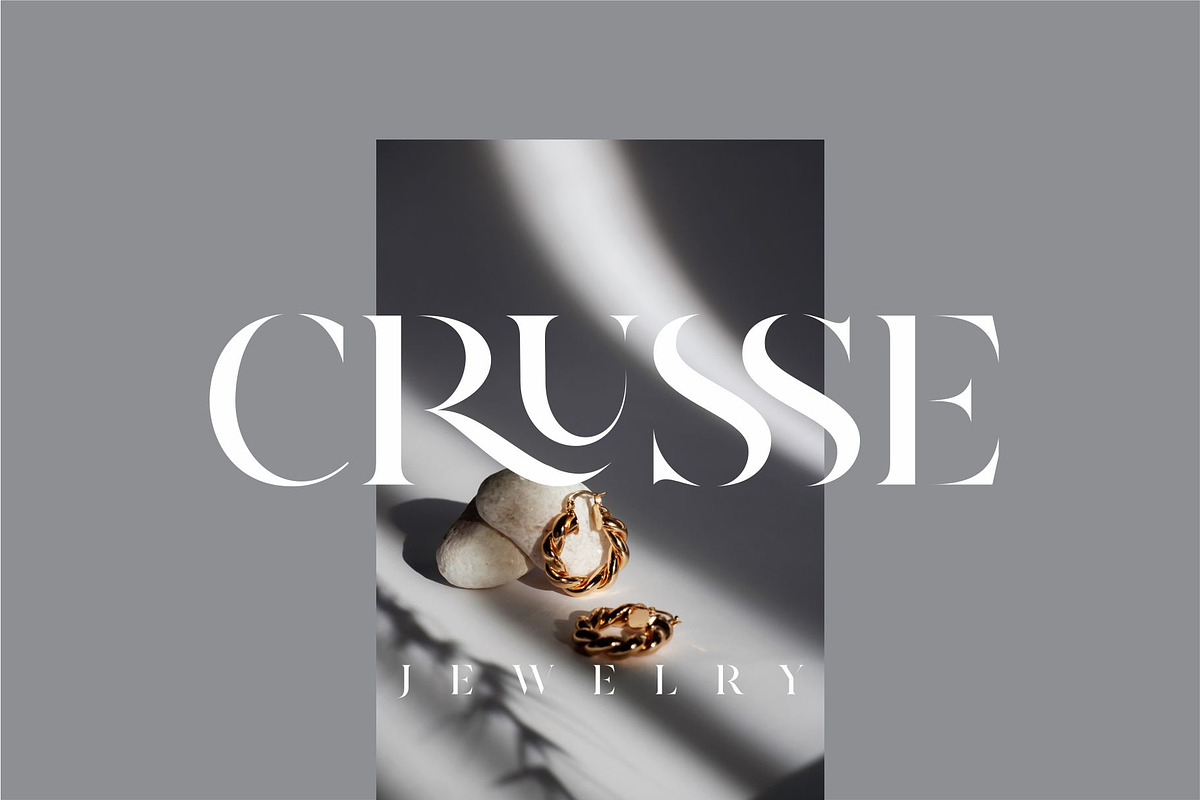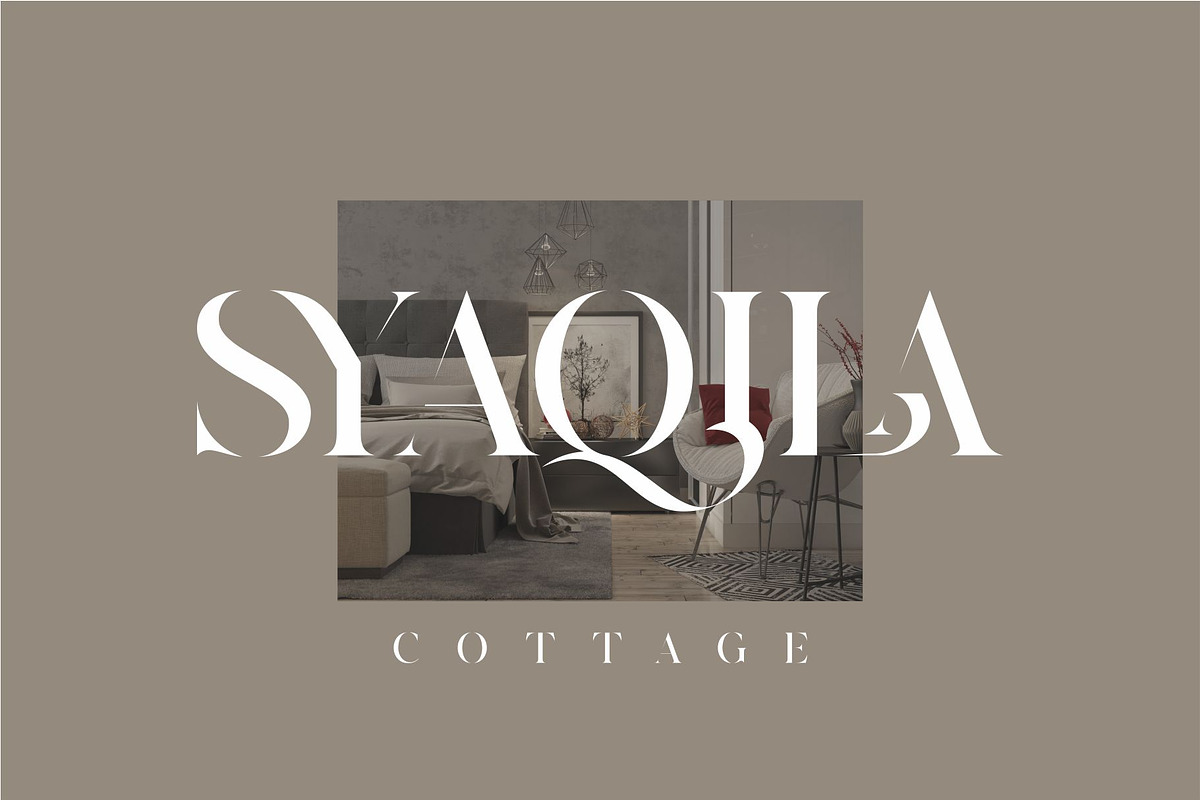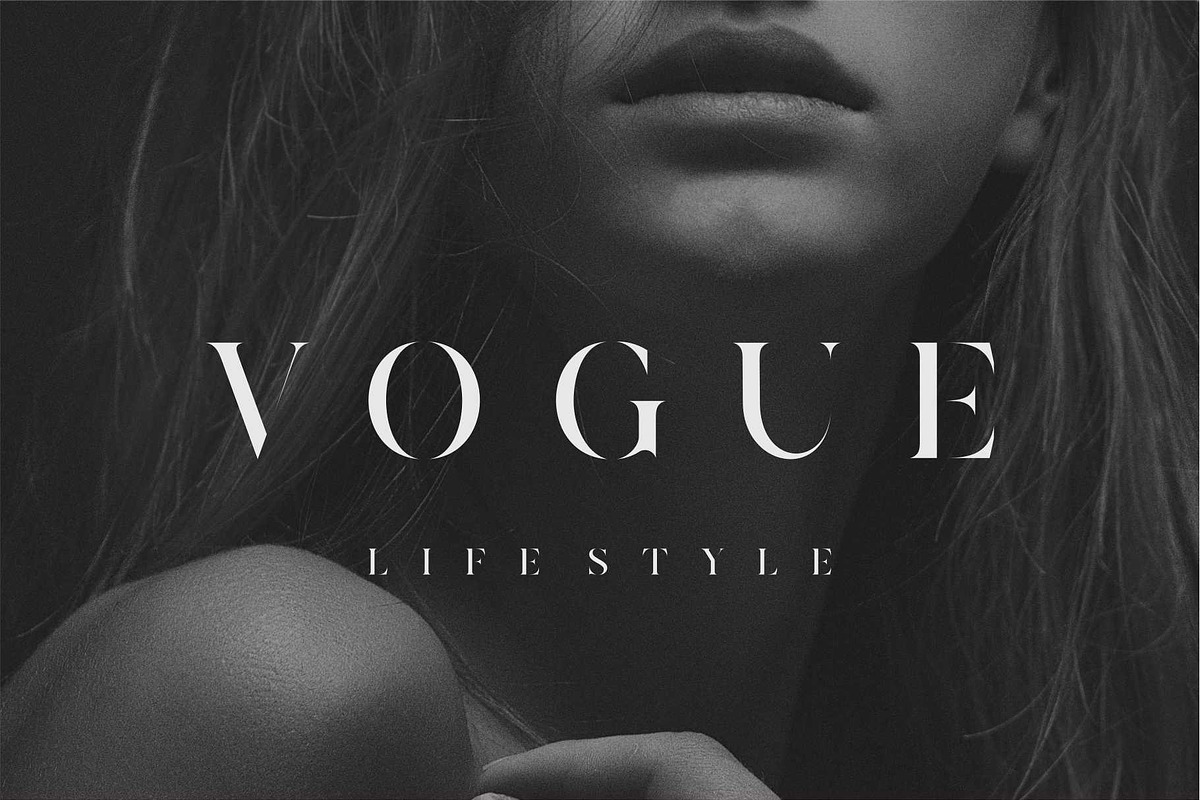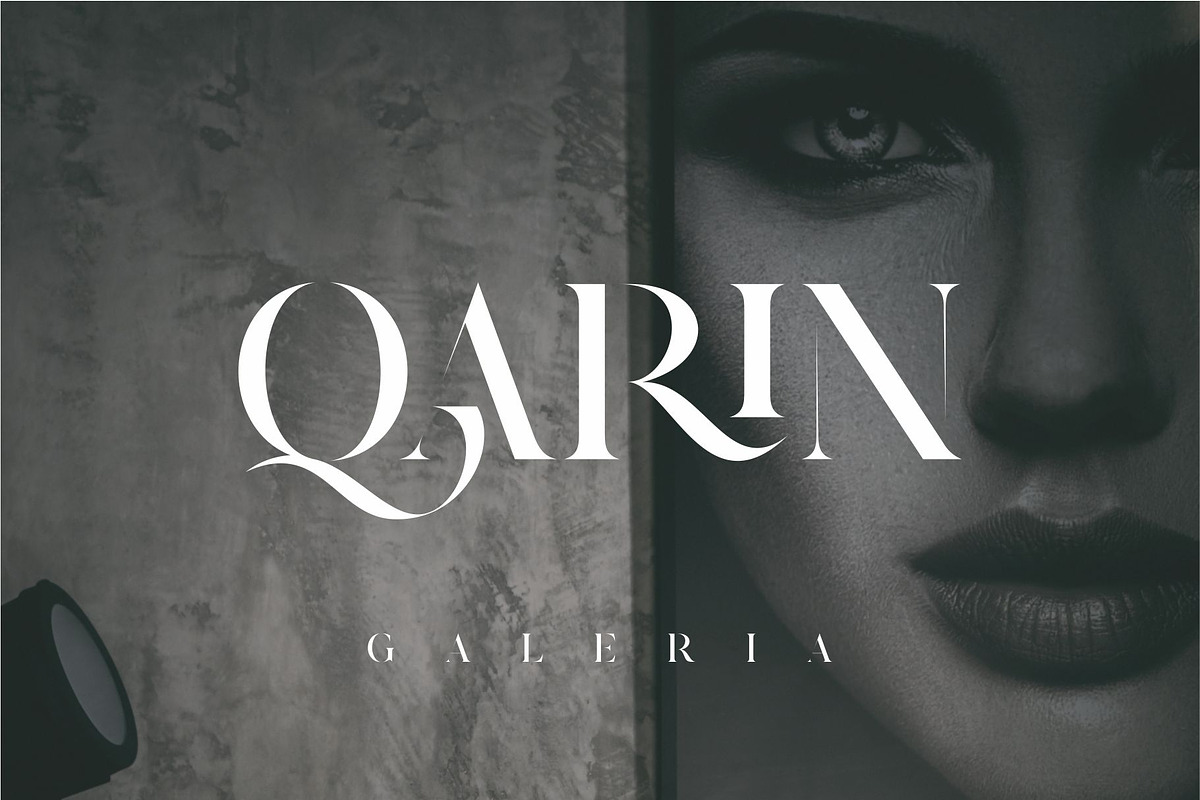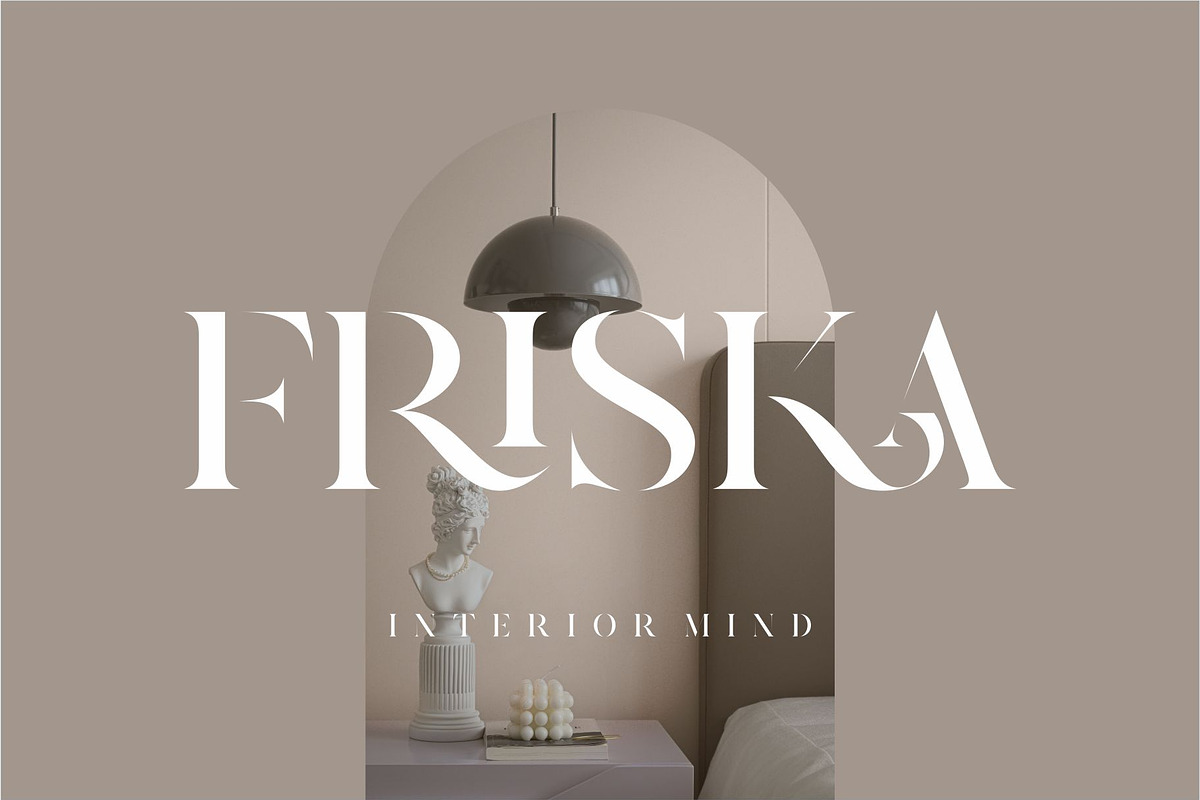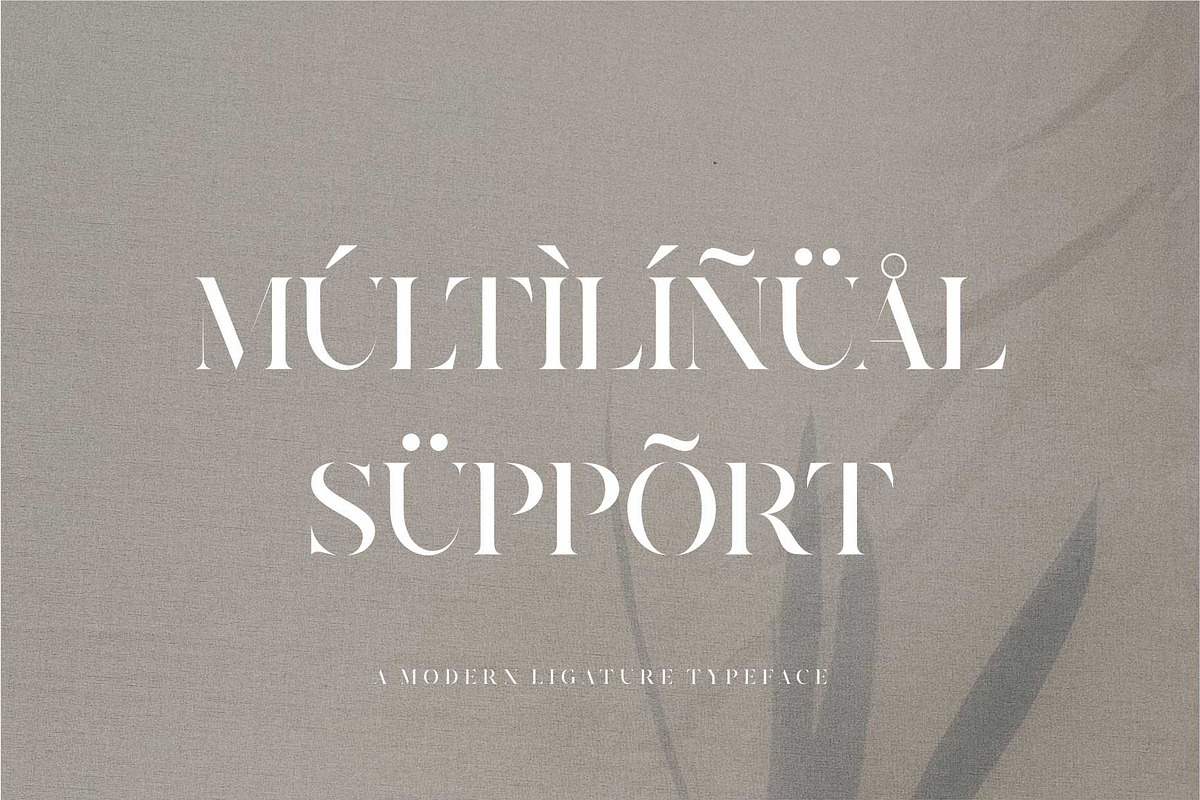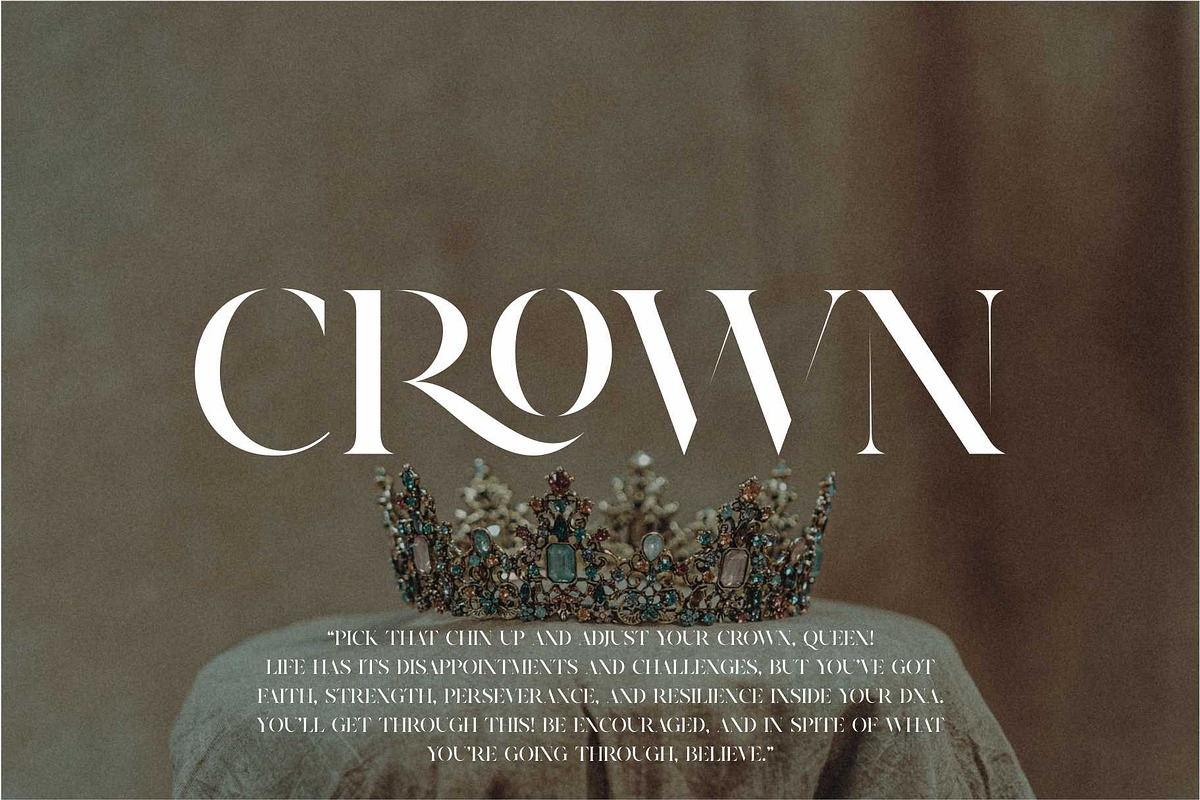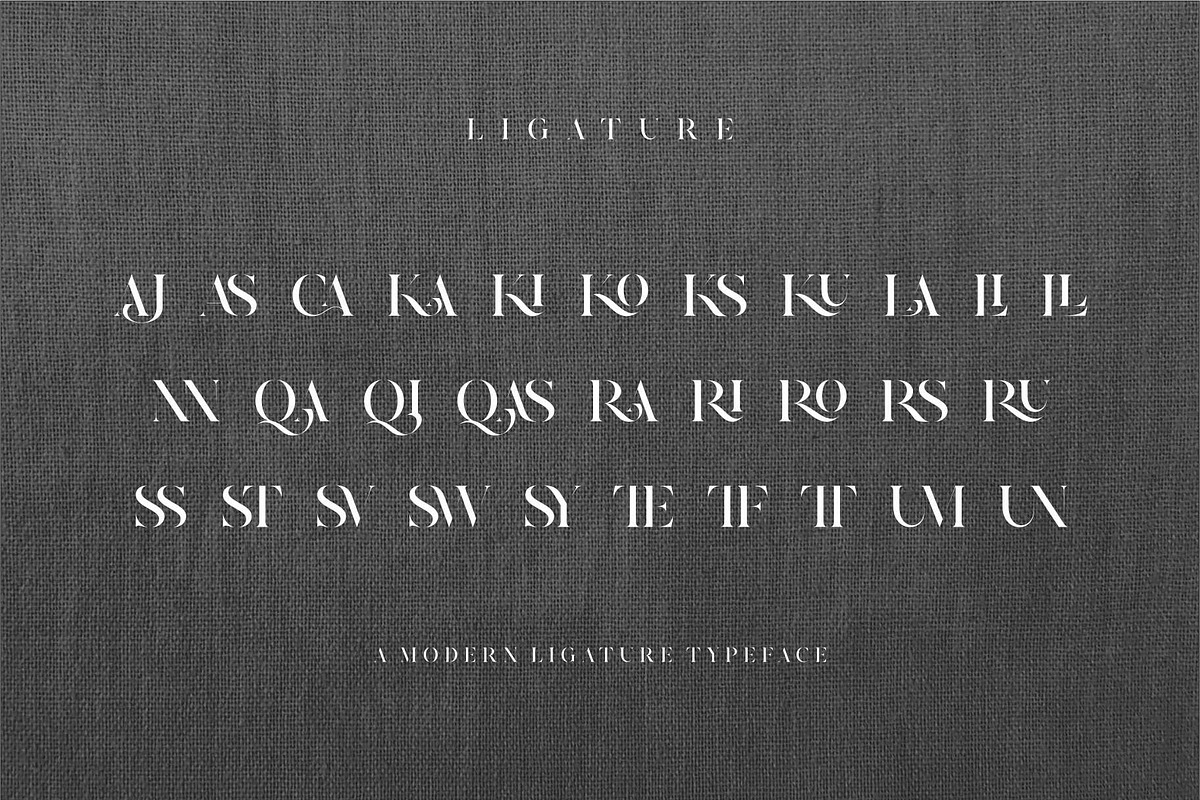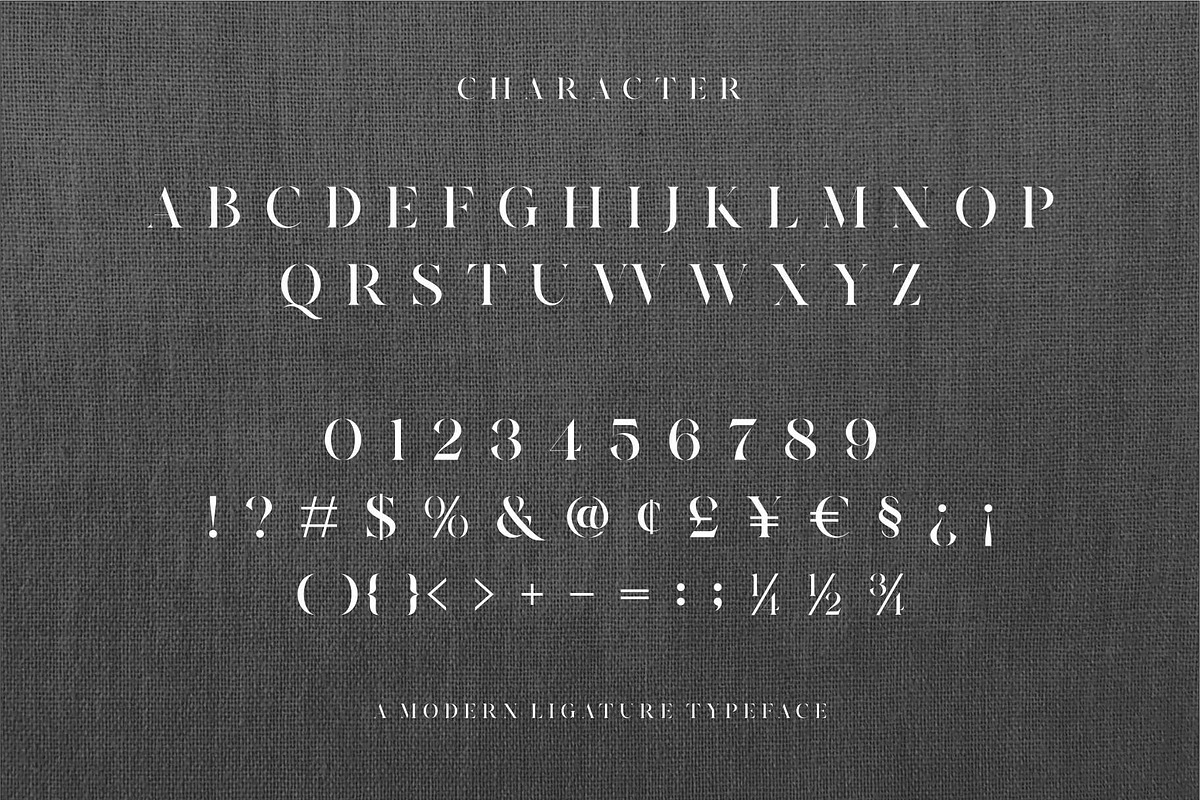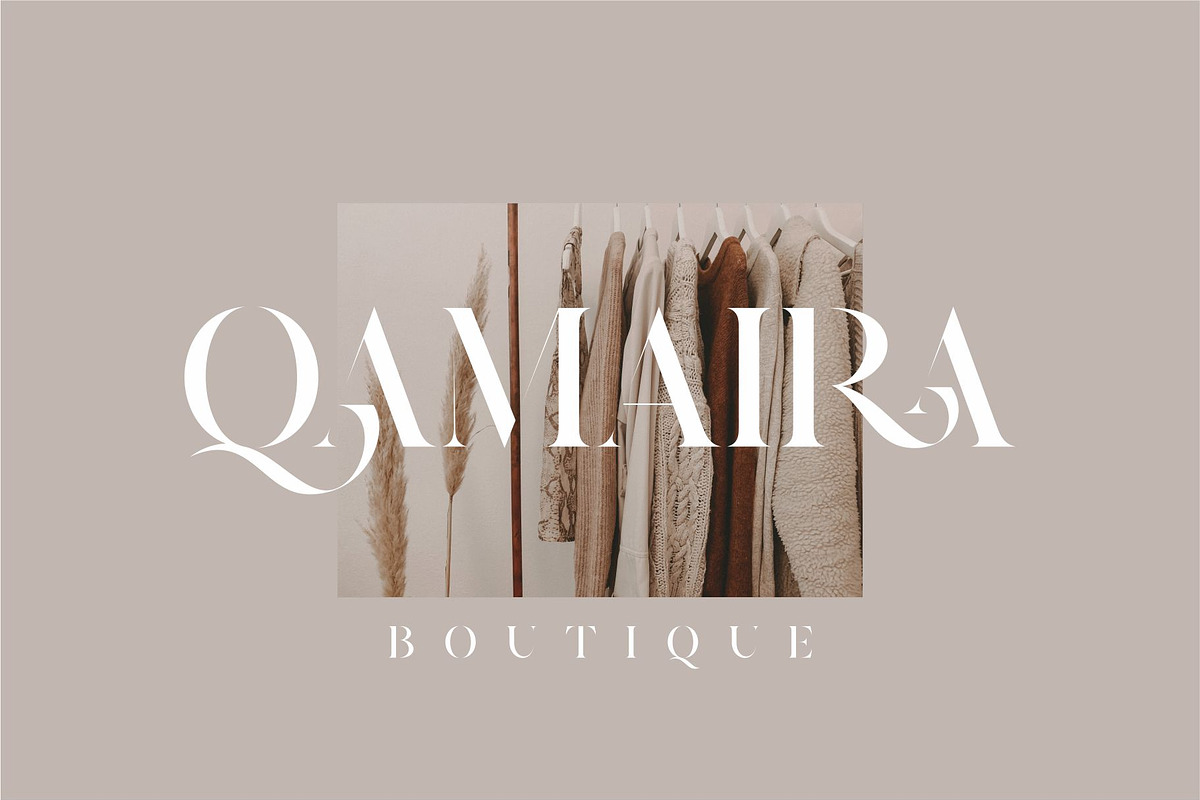
Riqas Modern Ligature Serif
Riqas Modern Ligature Serif Font inspired by the famous minimalist logo perfect for the purposes of designing templates, brochures, videos, advertising branding, logos, invitation, layout design, elegant crafting, beauty design and more.